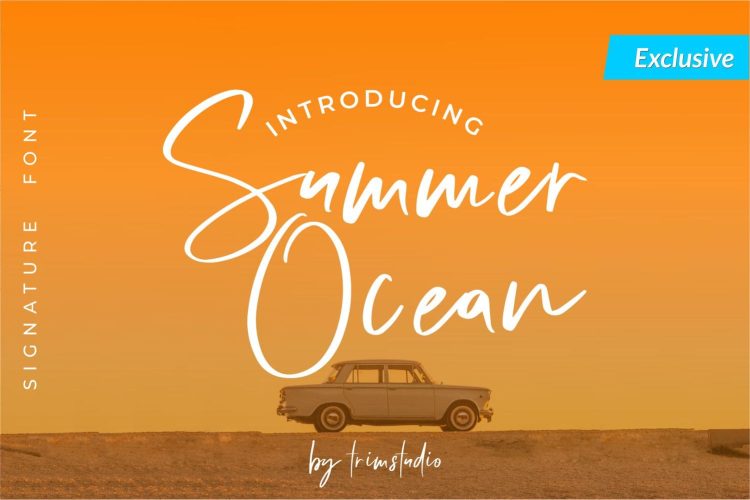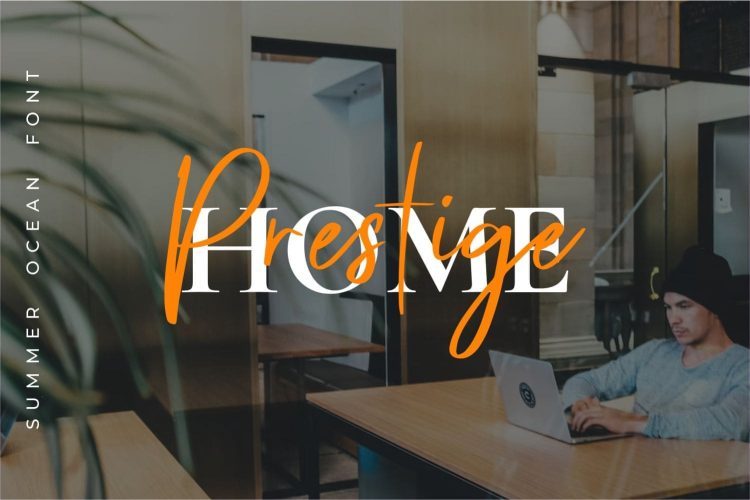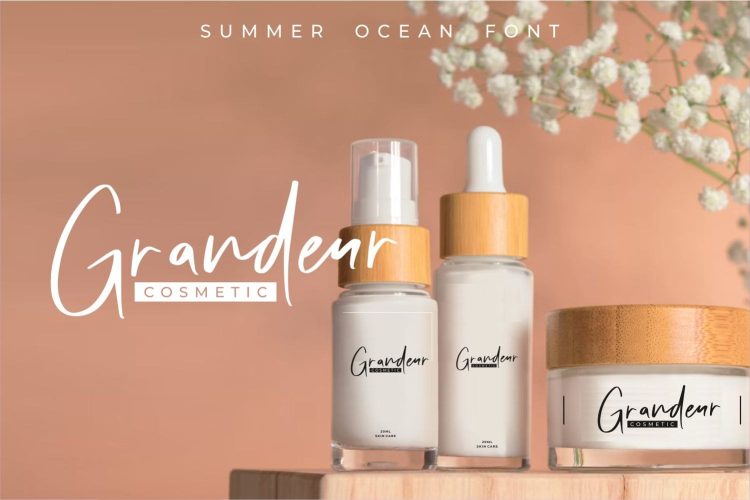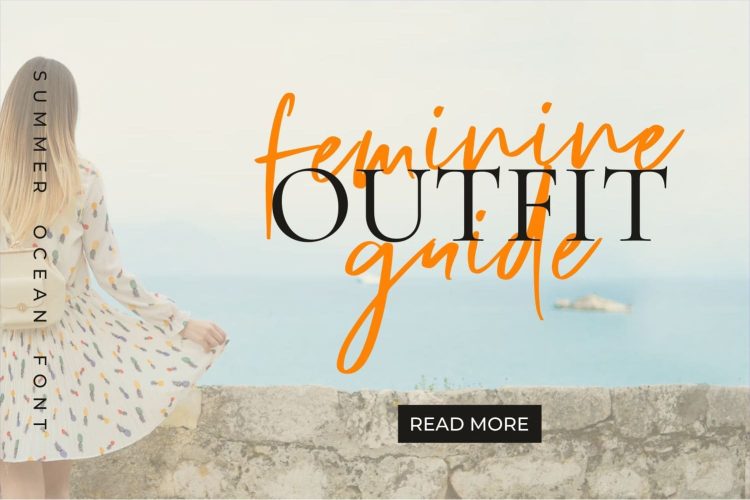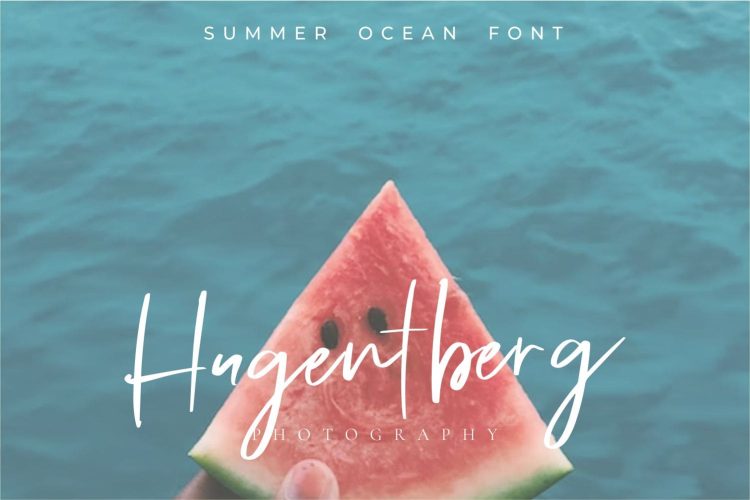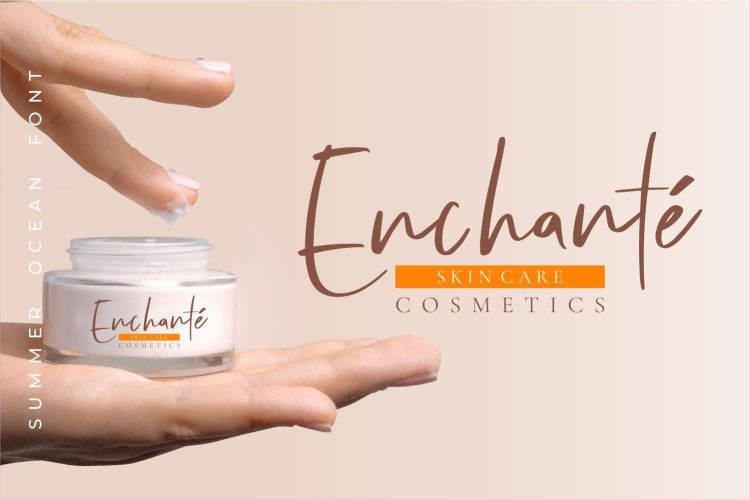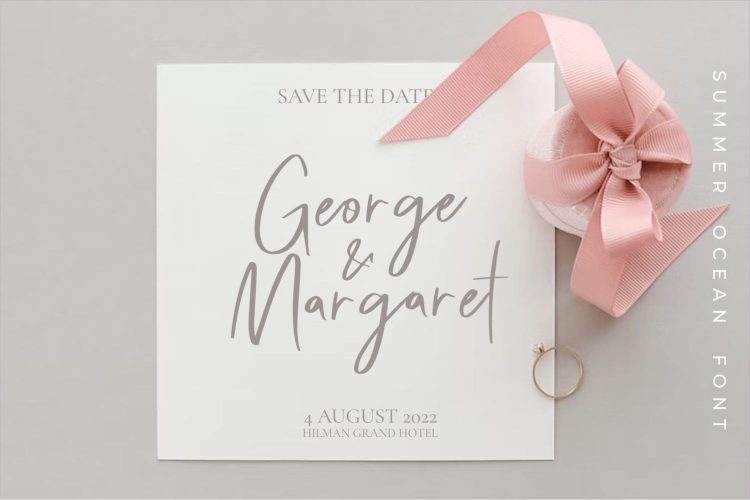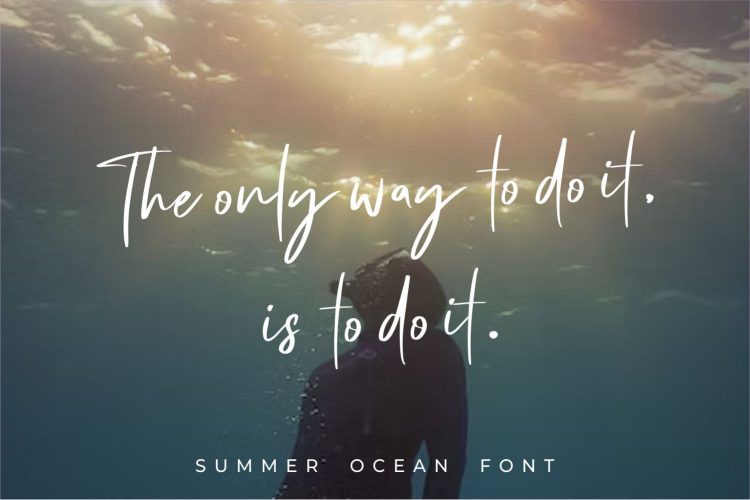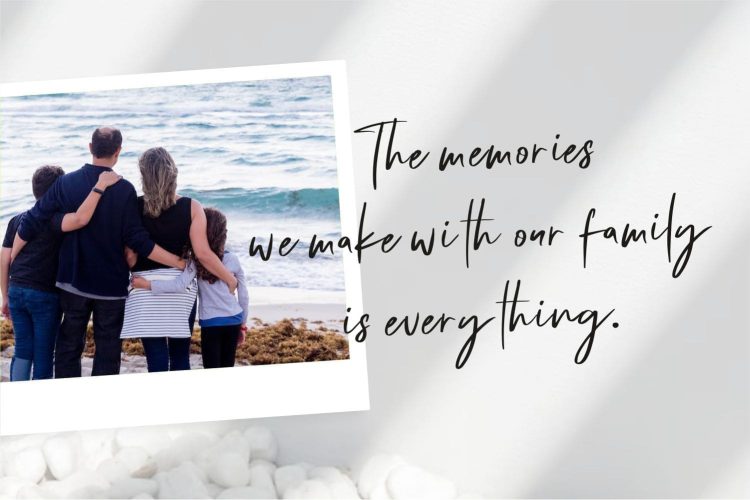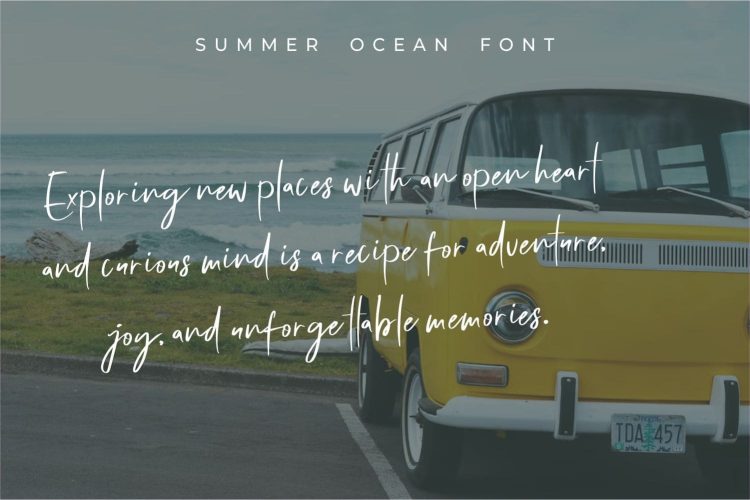
Summer Ocean captures the essence of the beach with its relaxed, carefree style. The handwritten script style is accented by a mix of hand-drawn elements, giving it a personal, natural feel. This font will bring a touch of the ocean to your designs. So sit back, relax, and let Summer Ocean take you to the beach with its style. It’s perfect for vacation-themed designs, wedding invitations, or any project that needs a touch of summery charm, and many more!